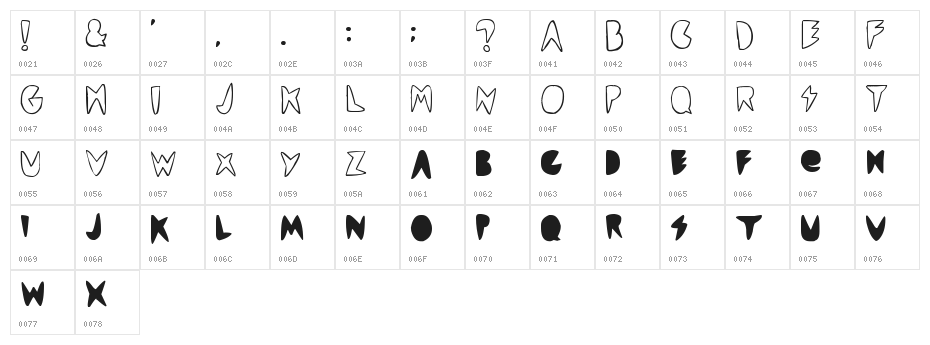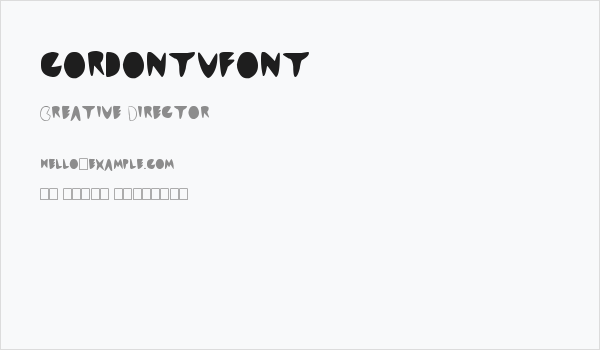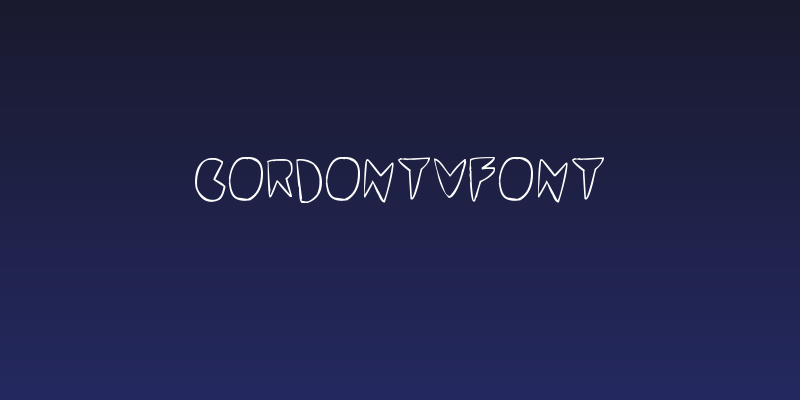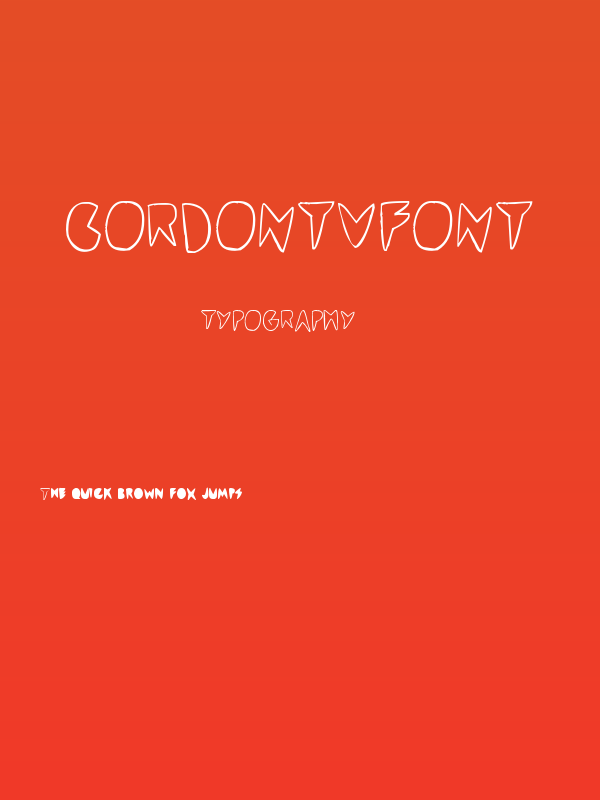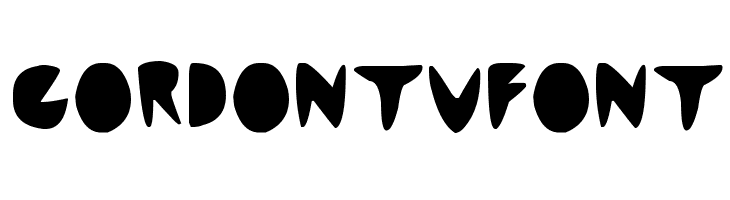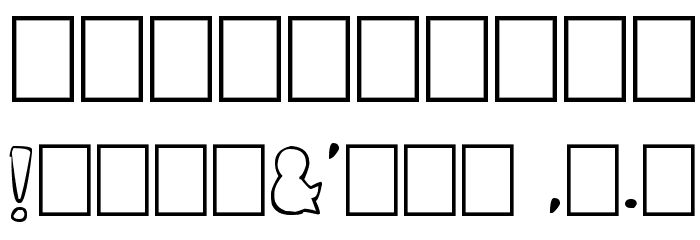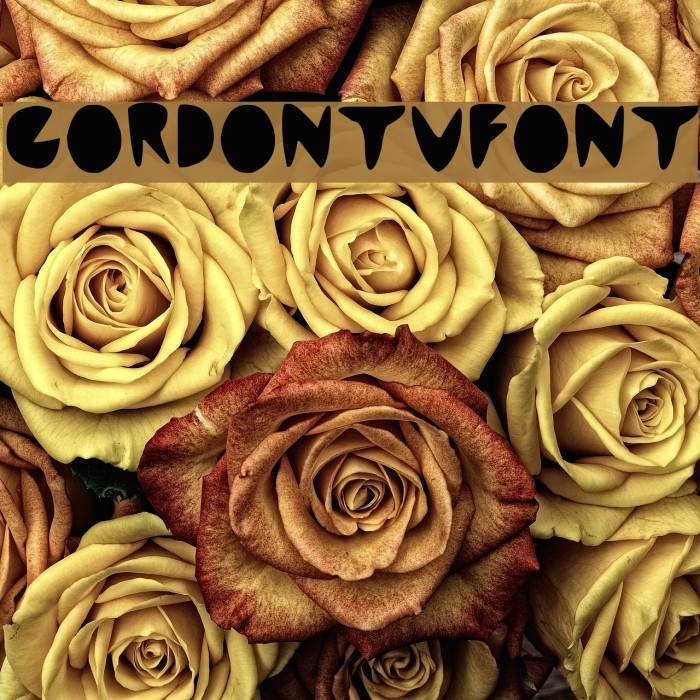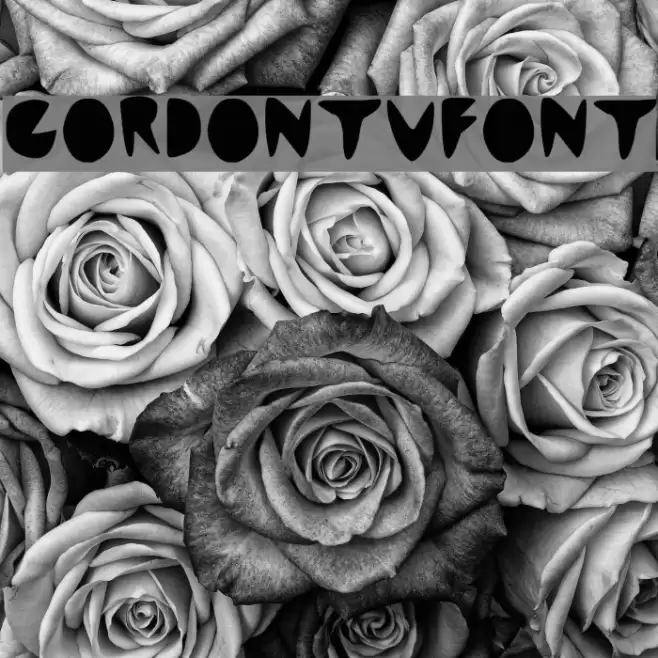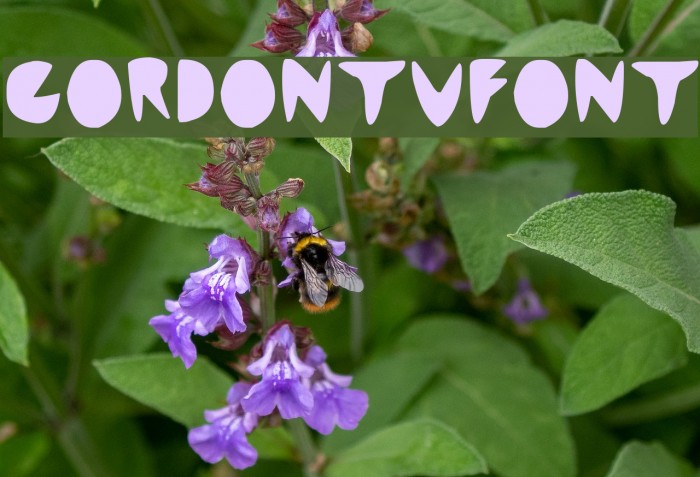
cordontvfont Font
cordontvfont Description
This font features a bold and dynamic style with a playful and edgy appearance. The uppercase letters have a unique, angular design with sharp edges and varying line thickness, creating a sense of movement and energy. The lowercase letters maintain this boldness, offering a cohesive look across the alphabet. The font includes distinctive special characters, such as a lightning bolt for the letter 'S', adding to its unique character. The overall design is eye-catching and suitable for projects that require a strong visual impact.
| Overall Style | Modern, Edgy |
| Proposed Projects | Ideal for music album covers, event posters, or branding for edgy and modern products. |